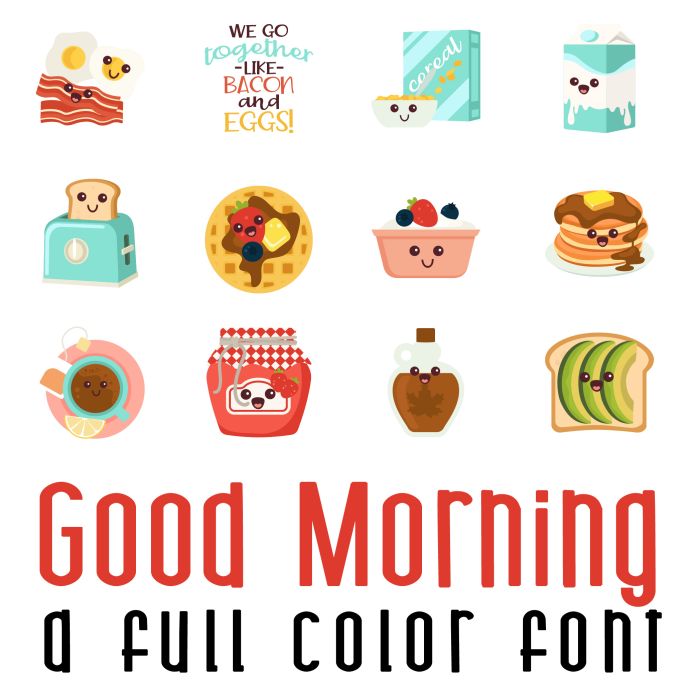
This fun full color font features 26 kawaii style breakfast food perfect for cards, crafts, gifts, planner stickers, scrap book pages, classrooms and more!